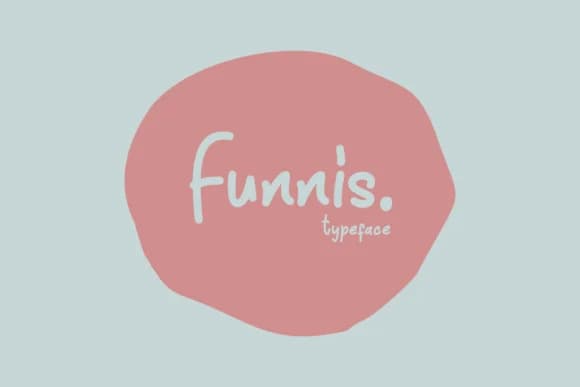
Funnis Font by Dani (7NTypes) is a bold script typeface that merges distinctive letterforms with excellent readability, making it an effective choice for both display work and body-adjacent text applications. The font's structured, weighted design creates visual confidence and presence while its rounded, approachable character maintains a friendly quality that resonates with contemporary audiences seeking personality without rigidity.
This script excels wherever designers need personality combined with clarity. Wedding invitation suites benefit from Funnis's confident bold presence without sacrificing elegance, while greeting card projects gain contemporary flair through its distinctive letterwork and dimensional quality. Branding for handmade goods and artisan businesses finds a natural home in this typeface, as do product labels for craft product lines seeking premium, personalized visual aesthetics. Social media graphics for creative entrepreneurs, event signage, and custom packaging projects all showcase Funnis's ability to command attention while remaining accessible and clear. The font's versatility extends across the maker economy and creative services sector, where distinctive visual identity matters deeply. Whether applied to boutique skincare labels, DIY craft materials, or small-business stationery collections, Funnis delivers consistent character, charm, and clarity across applications. Bring Funnis Font into your design toolkit by adding it to your Creative Fabrica library.
Funnis Font is a script font that shines as a display or heading face. Pair it with a clean sans-serif or serif font for body text β the contrast creates a clear hierarchy while the two styles stay balanced and easy to read.